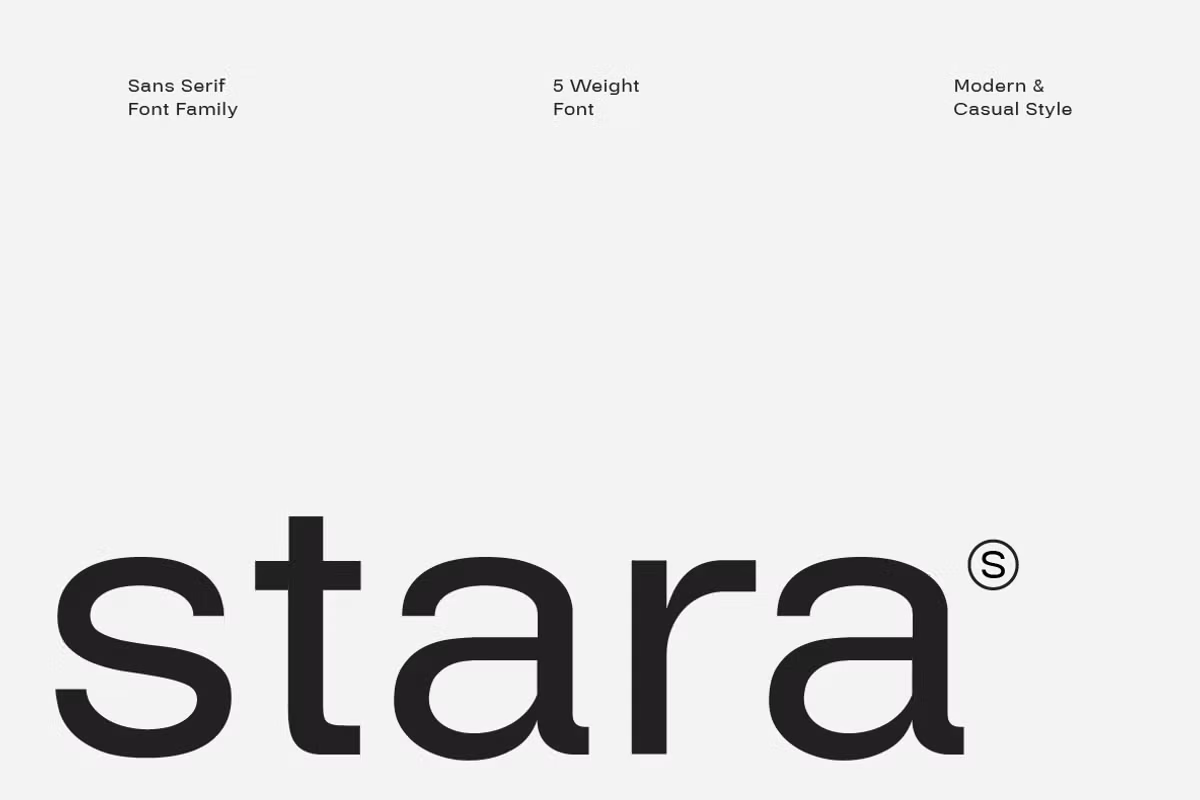
Stara Sans Serif Font Free Download is a clean, minimal, and modern typeface designed for clarity and versatility. With its balanced letterforms and contemporary aesthetic, Stara is ideal for branding, editorial layouts, web design, corporate presentations, and minimalist packaging.
Stara’s smooth geometry and professional finish make it a go-to choice for both large headlines and small body text. Its simplicity allows it to blend seamlessly with a wide range of design styles—perfect for creatives who want a font that’s both functional and stylish.